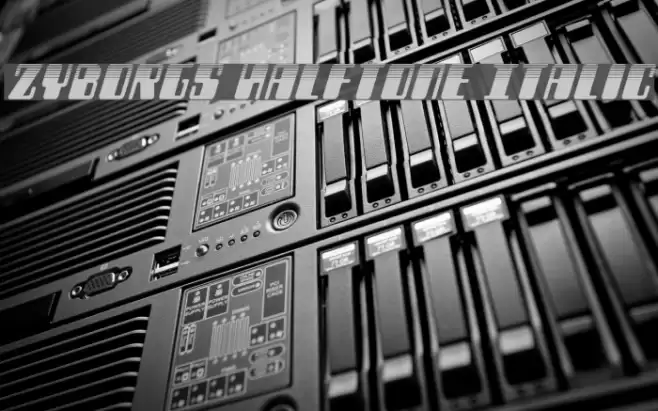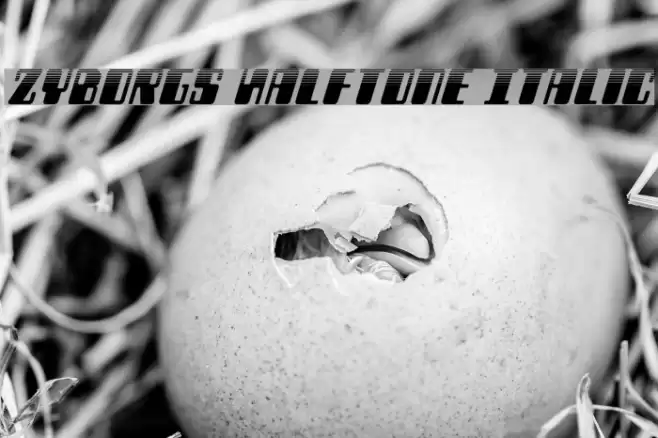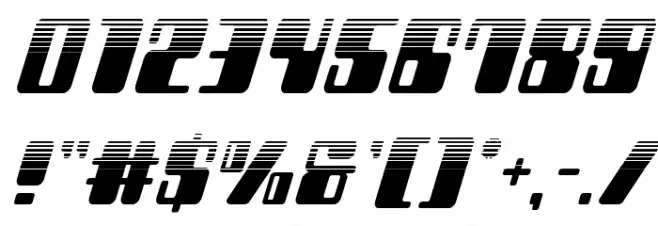
Zyborgs Halftone Italic Font
Zyborgs Halftone Italic Description
This font features a bold, italicized design with a futuristic and dynamic appearance. The characters are constructed with a halftone effect, creating a sense of movement and speed. The uppercase and lowercase letters maintain a consistent style, with sharp angles and a slightly condensed form. The numbers and special characters follow the same design principles, ensuring uniformity across all glyphs. The font's unique style makes it stand out, ideal for projects that require a modern and edgy look.
A bold, italicized font with a futuristic halftone effect from Uncategorized fonts.
- Proposed Projects: Ideal for sci-fi themed designs, video game graphics, technology branding, and dynamic posters.